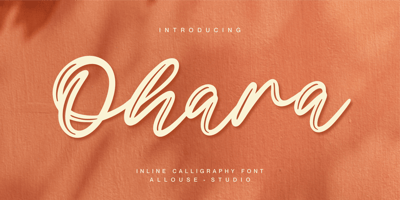
Ohara
Ohara font
Ohara Font Family was designed by Fachrizal Yusuf and published by Allouse Studio. Ohara contains 1 styles and family package options. Proudly Presenting, Ohara a Inline Calligraphy Font.Ohara is perfect for any titles, logo, product packaging, branding project, megazine, social media, wedding, or just used to express words above the background.Ohara also come with Multi-Lingual Support.Enjoy the font, feel free to comment or feedback, send me PM or email. Thank You!